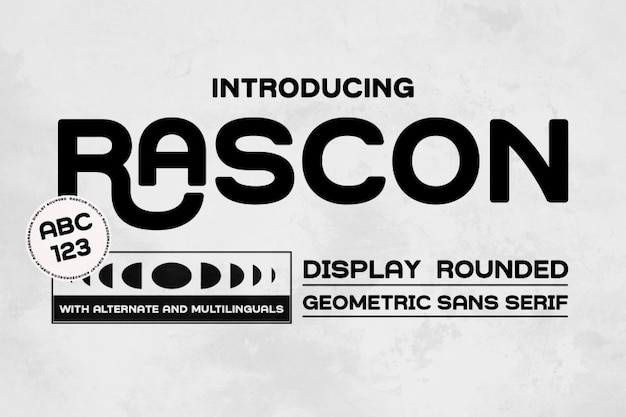
Rascon Font
"Rascon" font features a harmonious blend of geometric precision and rounded simplicity. Its clean lines and basic shapes offer a modern, minimalist aesthetic. Ideal for various design applications, "Rascon" provides clarity and versatility. Whether used for digital interfaces, branding, or print materials, its simplicity and geometric elements make it a reliable choice for projects seeking a balanced and straightforward typographic style.